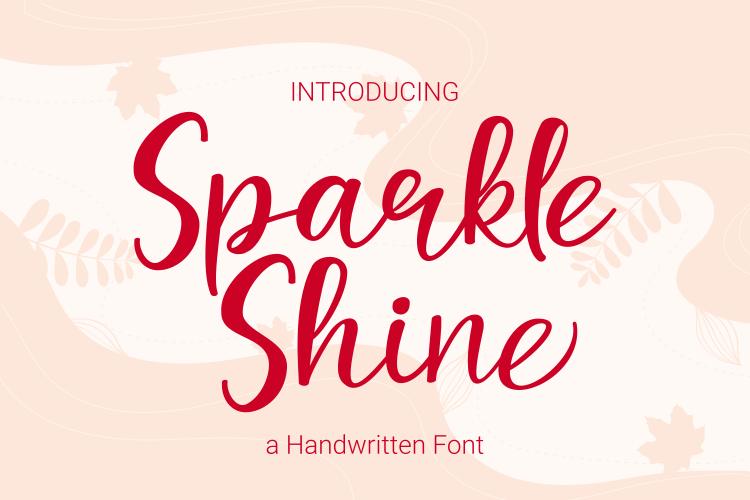
Sparkle Shine Font Description
Sparkle Shine is a cute and simple Handwritten font that you can use for all chalkboard quotes or teaching material! Its authentic look will add a personal and realistic feel to your designs. This font is PUA encoded, which means you can access all of the glyphs and swashes with ease!